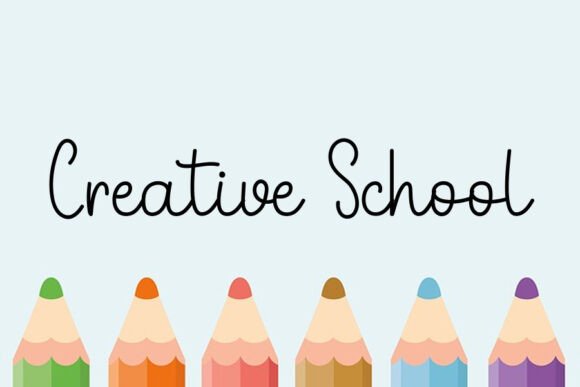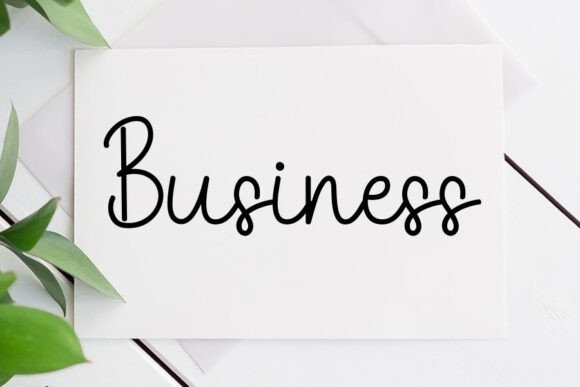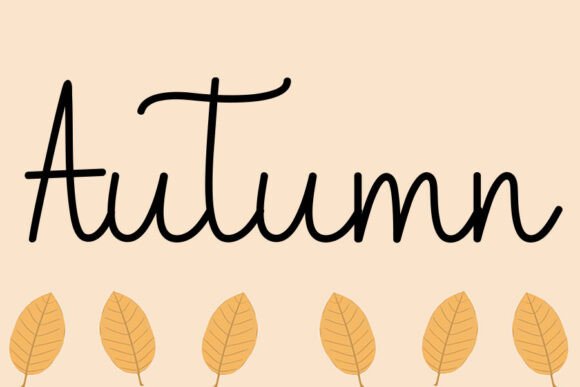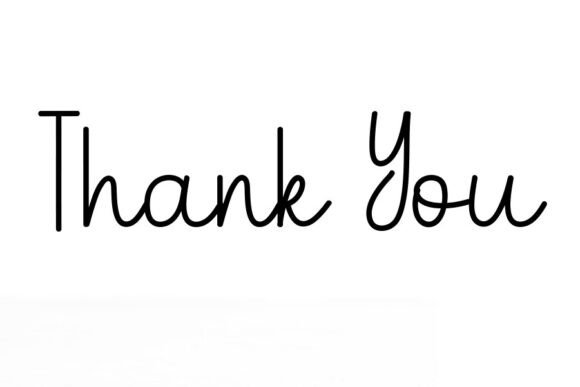
The Perfect Swing: Introducing the Badminton Font
There’s something magical about the moment when a design comes together, and you know you’ve created something special. Maybe it’s the way the colors blend, or the way the text flows across the page. Whatever it is, it’s that feeling that keeps us designers coming back for more. And today, I’m excited to share with you a new font that’s sure to give you that feeling: the Badminton Font.
This sweet and cursive handwritten font is the perfect addition to any design project. Whether you’re working on branding, logo design, or wedding invitations, the Badminton Font will add a touch of elegance and sophistication. Its gentle curves and playful feel make it a joy to work with, and its versatility means it’s perfect for a wide range of projects.
Badminton Font Key Features
- Size: The font size varies from Extra Light to Bold, providing flexibility for different design needs.
- Unique Characteristics: Badminton Font features a modern and clean design with a unique blend of rounded and geometric shapes, making it suitable for various applications, including branding, advertising, and digital media.
- Language Support: Badminton Font supports multiple languages, including Latin, Cyrillic, and Greek alphabets, making it a versatile choice for global designs.
- Kerning and Ligatures: The font includes advanced kerning and ligature features, ensuring that letters and letter combinations are properly spaced and visually appealing.
Badminton Font Review
I recently had the chance to work with the Badminton Font, and I must say it’s a unique and interesting choice. Here are my thoughts on what works well and what doesn’t.
- Playful and fun: The Badminton Font is perfect for creating a lighthearted and playful atmosphere in your design.
- Good for headings: The font is bold and eye-catching, making it great for headings and titles.
- Customizable: The font comes in various weights and styles, allowing you to customize it to fit your design needs.
- Not suitable for body text: The font is too playful and informal for large blocks of text, making it better suited for headings and titles.
- Limited legibility: At smaller font sizes, the font can become difficult to read, especially in certain weights and styles.
- Not ideal for formal designs: The Badminton Font’s playful nature makes it better suited for informal or creative designs, rather than formal or professional ones.
Overall, the Badminton Font is a fun and versatile choice for designers who want to add a playful touch to their designs. While it may have some limitations, it’s a great option for creating eye-catching headings and titles.
The Badminton font is ideal for sports-themed designs, such as posters, flyers, and merchandise. It’s also great for creating a fun and playful tone in your branding materials.
Some tips for getting the most out of the Badminton font include:
- Using it in combination with bold or italic styles to add emphasis.
- Experimenting with different font sizes to create visual hierarchy.
- Pairing it with other fonts to create a unique and eye-catching design.
Comparison to Badminton Font: Carolyna Pro has a more geometric and modern look compared to Badminton Font, which has a more playful and casual feel. Carolyna Pro is a better choice for formal and professional projects, while Badminton Font is suitable for casual and creative projects.
Great Vibes is a modern script font that adds a touch of elegance and sophistication to designs. It’s perfect for creating eye-catching headlines, titles, and short paragraphs in digital and print media.
Can I customize the Badminton Font to suit my specific design needs?
Yes, the Badminton Font is highly customizable, allowing you to adjust various parameters such as font size, line height, and color to suit your specific design needs. Additionally, the font’s OpenType features allow for advanced typographic control, enabling you to create complex layouts and effects with ease.